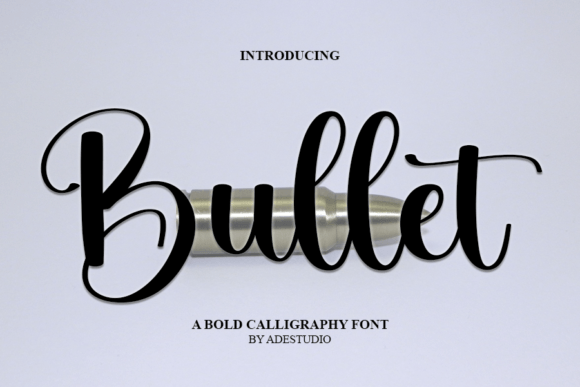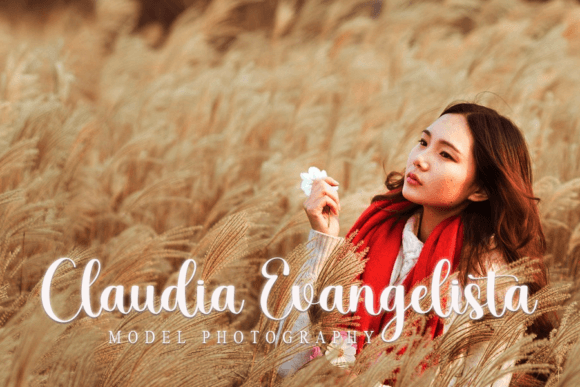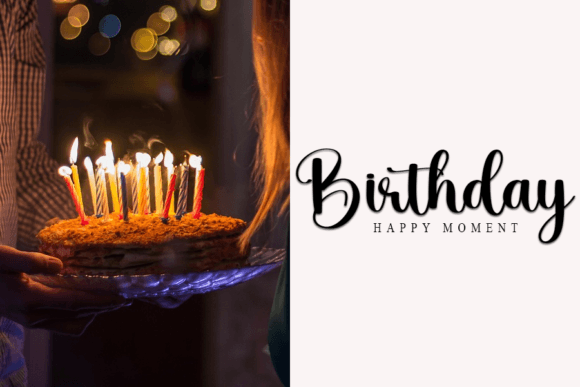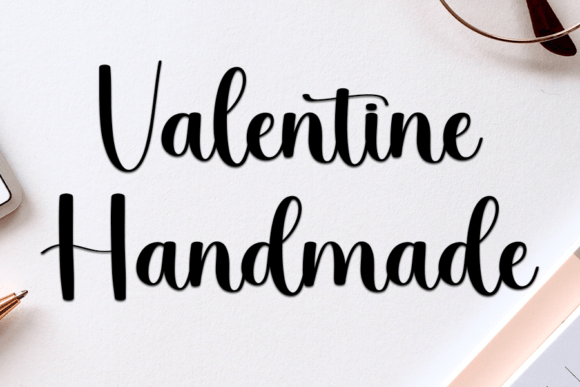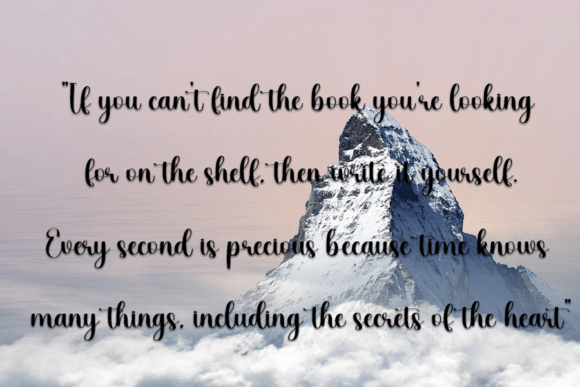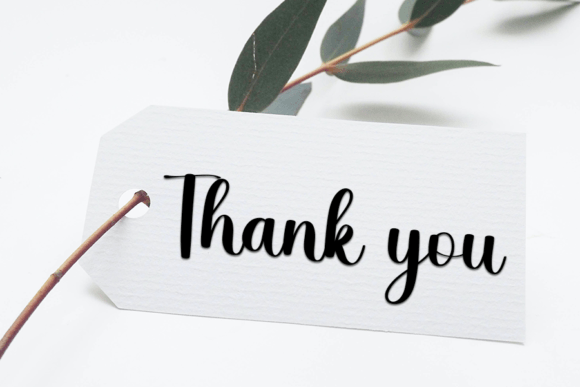
Bullet
Bullet is a delicate handwritten font carefully crafted for a cool and unique design. This font can be used to write letters, invitations, food products, titles and more.